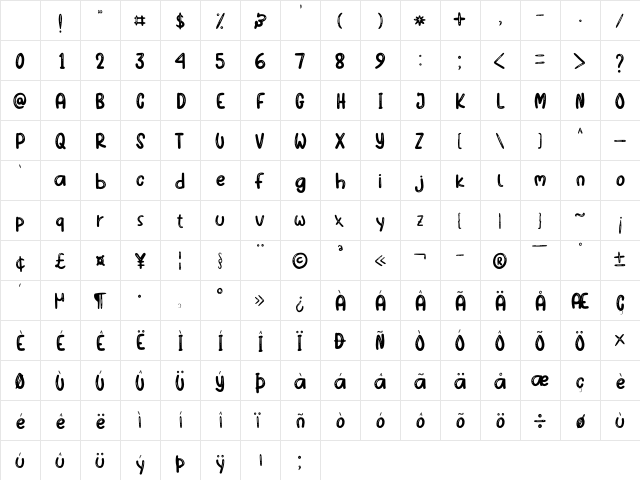
Complete Fun Party Regular glyph index. Displaying only characters natively supported by Fun Party Regular font.
Fun Party has an approachable, lighthearted character - its loose, expressive forms are well-suited to children's content, casual branding, and fun-first design.
Font Pairing: Pairs well with a rounded or humanist sans for body copy, maintaining the friendly tone without relying on Fun Party to carry extended reading.
Pro Tip: Use Fun Party at larger display sizes where its expressive character can land. Pair with a clean, simple sans for body copy to maintain readability.